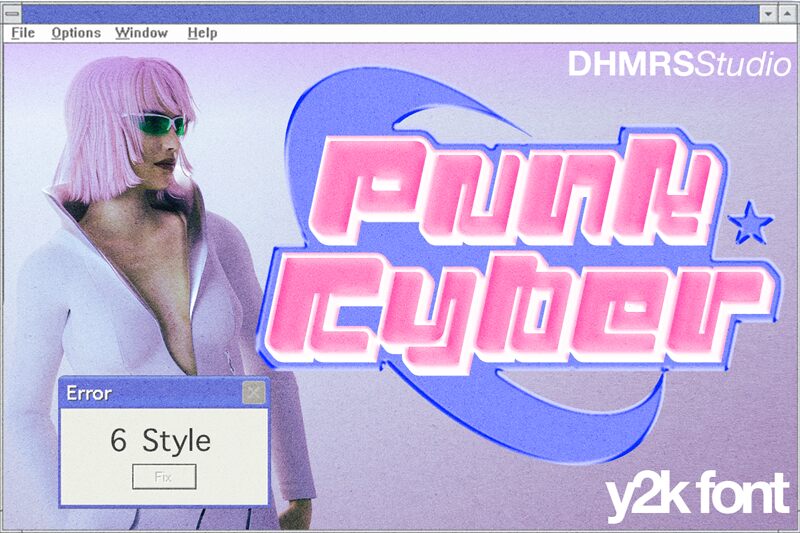
Punk Cyber, designed by Dharmas Studio, is a striking display font that combines the rebellious spirit of punk with futuristic techno elements. With its extra-bold weight and extra-expanded width, this font demands attention and conveys a sense of edgy confidence.
Perfect for album covers, concert posters, and streetwear branding, Punk Cyber injects a bold energy into any project. Its bold strokes and unique letterforms make it an ideal choice for gaming graphics, tech websites, or even sci-fi book covers.
Punk Cyber DEMO Regular